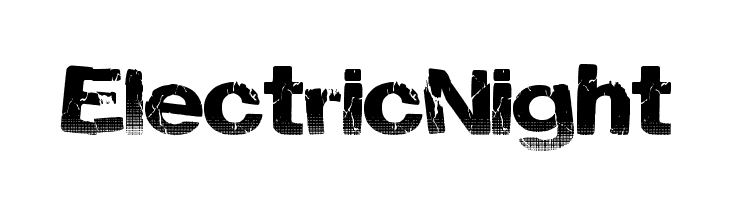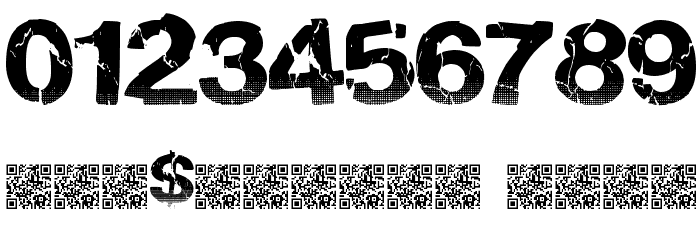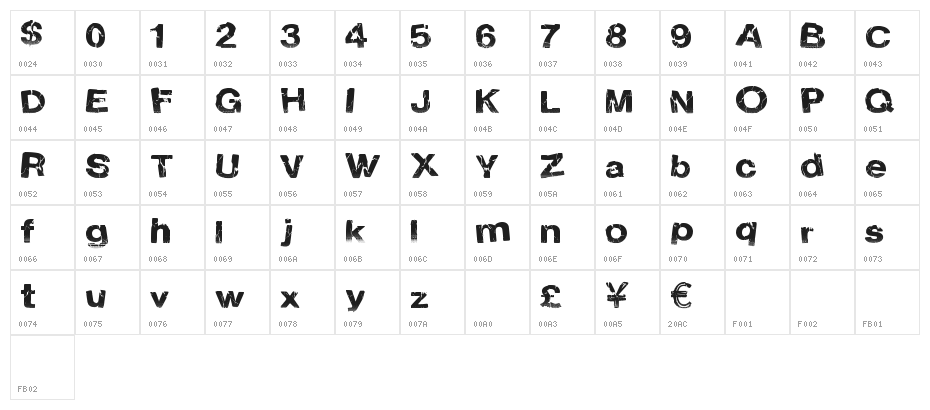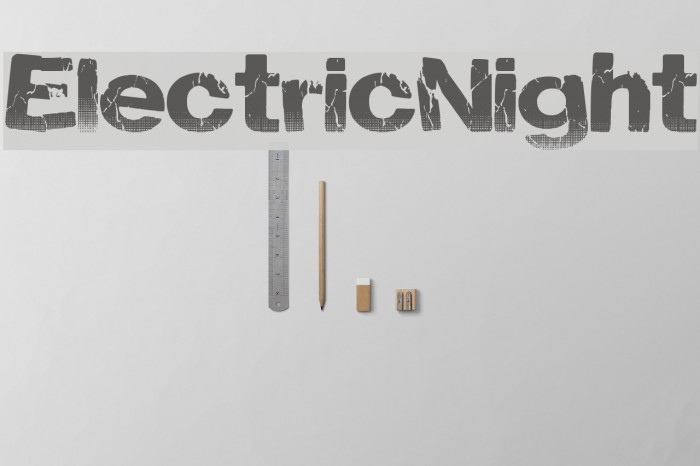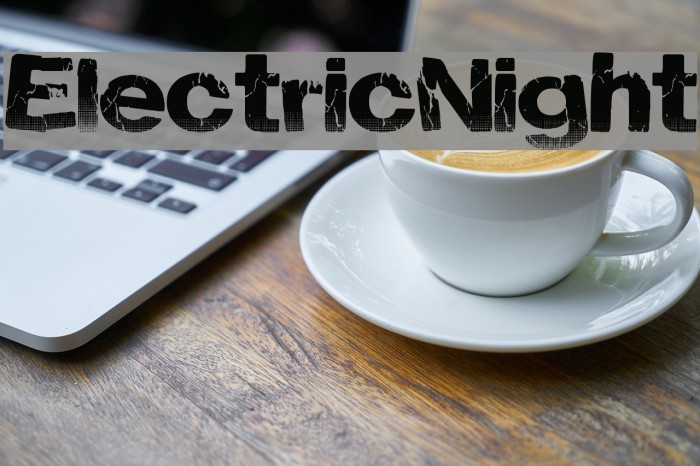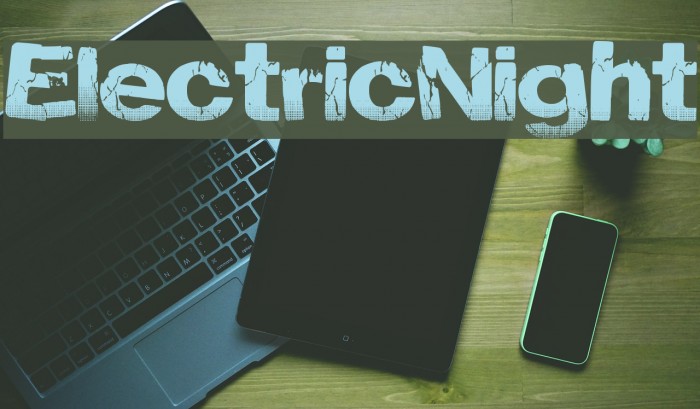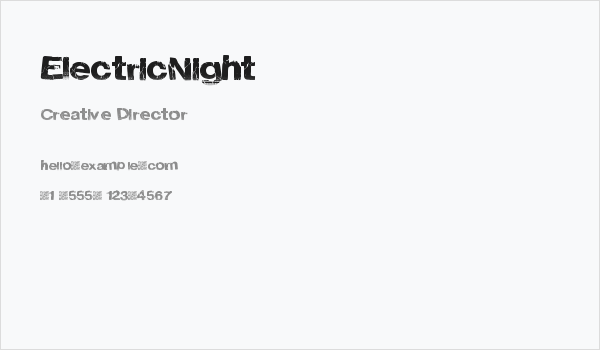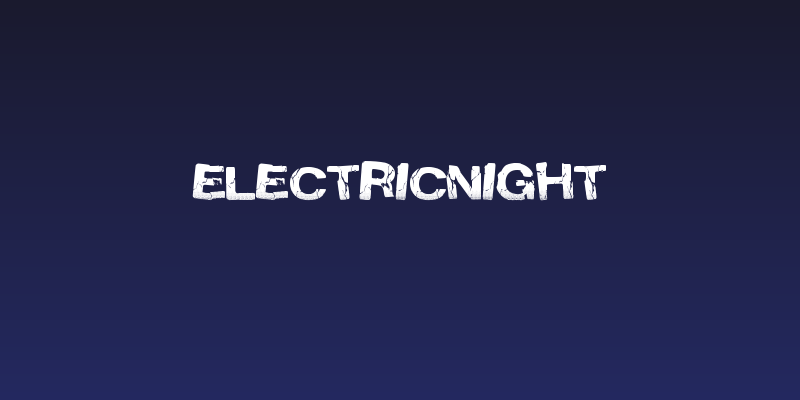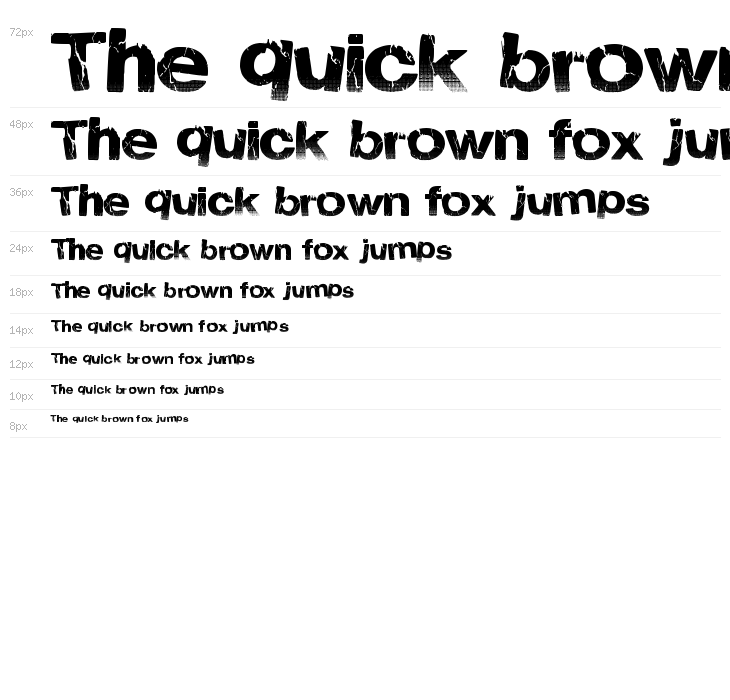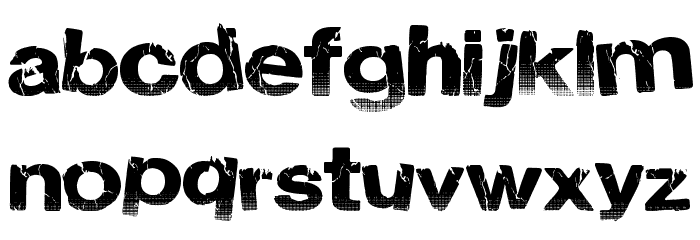
ElectricNight Font
ElectricNight Description
This font features a bold, distressed style with a unique textured appearance, reminiscent of grunge or urban street art. The characters are heavily stylized with a rough, uneven surface that gives them a dynamic and edgy look. The uppercase and lowercase letters maintain a consistent design, with a slightly condensed form that enhances their boldness. Numbers and special characters follow the same aesthetic, ensuring uniformity across all glyphs. The font's distinctive style makes it stand out, ideal for projects that require a strong visual impact.
| Overall Style | Urban, Grunge, Edgy |
| Proposed Projects | Ideal for music album covers, streetwear branding, posters, and urban-themed designs. |